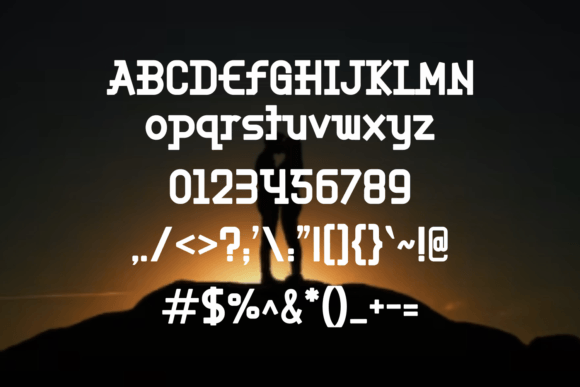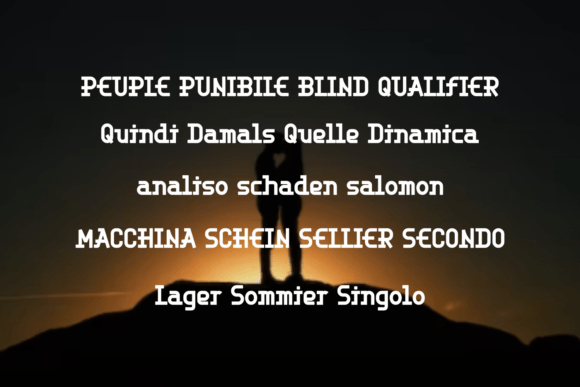
Introduction to Manjad Font
You know that moment when you’re working on a creative project, and you’re stuck searching for the perfect design resource to bring it all together? The frustration of scrolling through countless fonts, only to find that none of them quite capture the essence of your vision. But what if I told you that there’s a font that can change all that?
Meet the Manjad Font, a cool and unique display font that’s been carefully crafted to elevate any design. With its intricate details and high-quality design, this font is the perfect addition to your font library. Whether you’re working on a free download project or a high-end commercial design, the Manjad Font has the potential to take your creation to the next level.
Key Features of Manjad Font
- High-quality, professional design suitable for various creative projects
- Features a transparent background, allowing for easy customization and layering
- Includes a range of glyphs and characters to support diverse languages and writing systems
- Designed with a clean and modern aesthetic, making it perfect for digital and print projects
Honest Review: Manjad Font
As a designer, I’m always on the lookout for high-quality design resources that can elevate my creative projects. Recently, I stumbled upon the Manjad Font, and I’m excited to share my honest review.
- The font is designed with a transparent background, making it easy to work with and allowing for seamless layering.
- The font’s unique style and flair make it perfect for adding a touch of sophistication to any design project.
- The font may not be suitable for all types of projects, as it can be quite bold and eye-catching.
- The free version may not include all the characters and glyphs you need, which can be a limitation for more complex projects.
Overall, I’m impressed with the Manjad Font. It’s a great addition to any designer’s toolkit, and I’m excited to use it in my future projects. With its high quality, unique style, and free download option, it’s definitely worth checking out.
Design Resource for Your Creative Project
The Manjad Font is a high-quality design resource perfect for adding a touch of elegance to your creative project. With its transparent background, you can easily layer it over any image or design element.
Tips for Getting the Most Out of Manjad Font
Here are a few tips for getting the most out of the Manjad Font:
- Use the font in combination with other design elements to create a cohesive look.
- Experiment with different font sizes and styles to add visual interest.
- Use the transparent background to create a sense of depth and dimension.
The Manjad Font is perfect for a variety of design projects, including:
- Business cards and marketing materials.
- Blog posts and social media graphics.
Alternatives to Manjad Font
Dancing Script Font is a lively, handwritten font that’s perfect for adding a playful touch to your design project. It’s ideal for use in social media graphics, advertising, and other creative projects where a fun and energetic font is required.
Compared to Manjad Font, Dancing Script Font has a more casual and informal look, making it suitable for younger audiences and more relaxed designs. It’s also available for free download and comes with a transparent background, making it easy to use in various design applications.